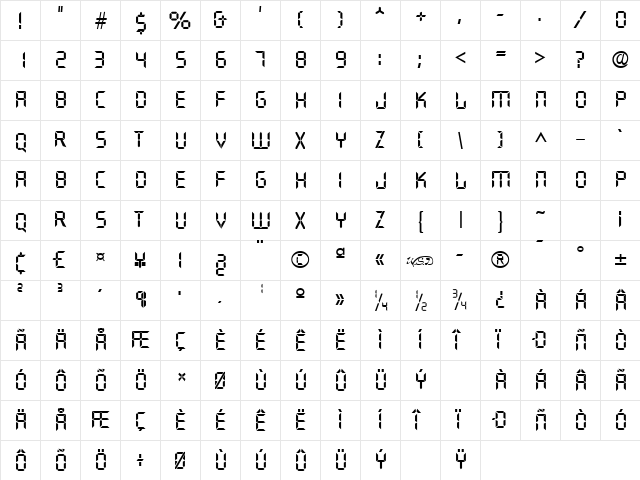
Digiface normal
Design Context for Digiface Typeface
Digiface takes a measured approach to typography — its balanced proportions and neutral character make it a reliable workhorse for both digital and print work.